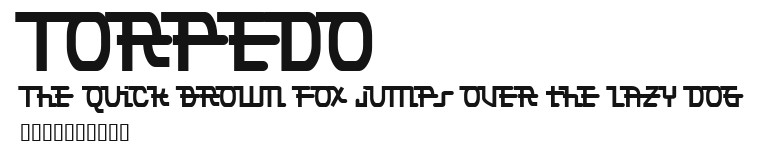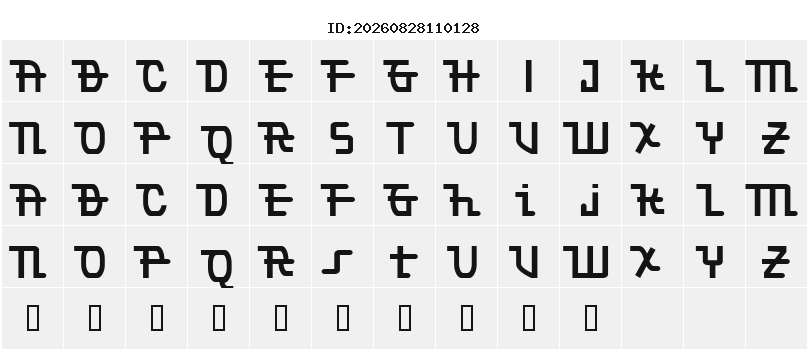
• Font Name: Torpedo
• Full Font Name: Torpedo
• PostScript Name: Torpedo
About Torpedo.ttf
Torpedo.ttf is a modern, elegant sans-serif font designed for ultimate readability and visual harmony. Perfect for branding, headlines, web design, and print materials.